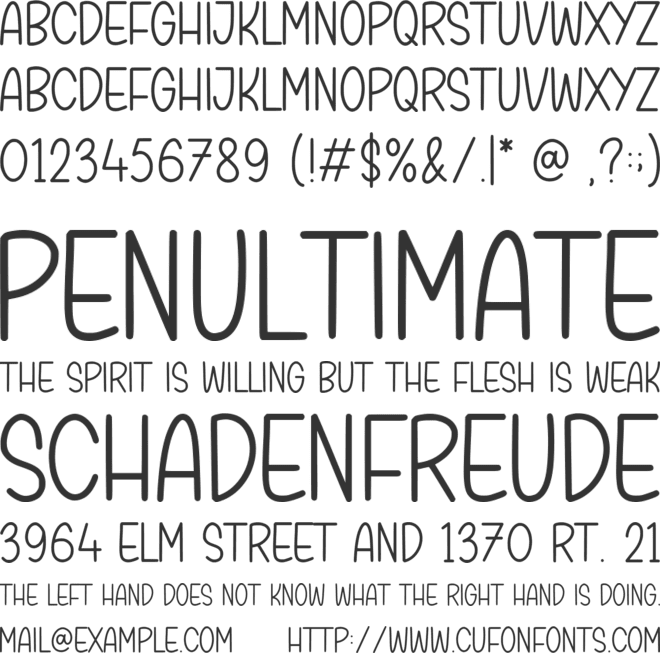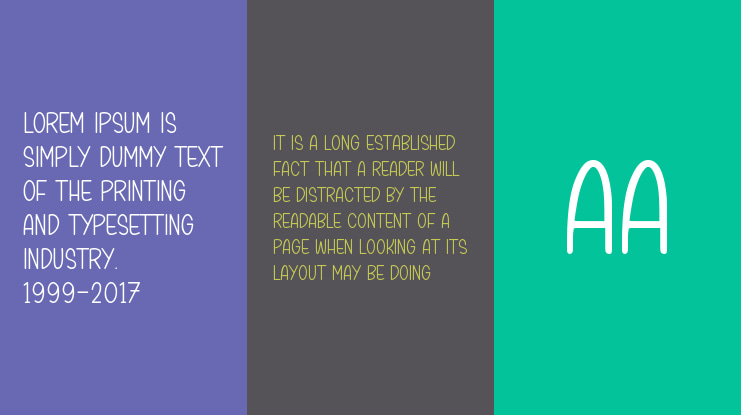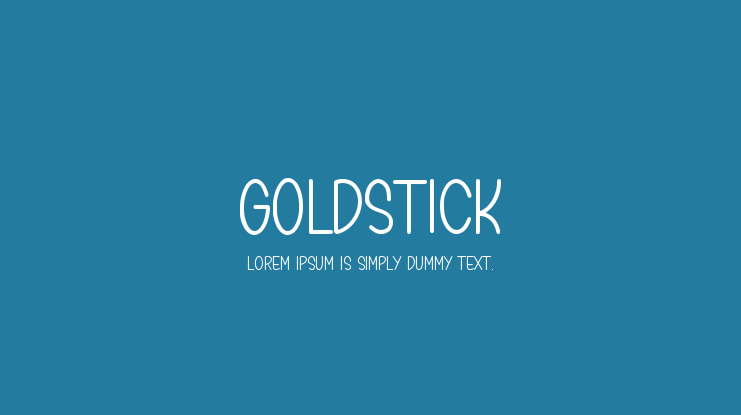
GOLDSTICK Font
Balpirick Studio
Introducing by Balpirick Studio.
Proudly Present, GOLDSTICK Font.
GOLDSTICK is a Fun Monoline Handdrawn Font.
GOLDSTICK is perfect for product packaging, branding project, megazine, social media, wedding, or just used to express words above the background.